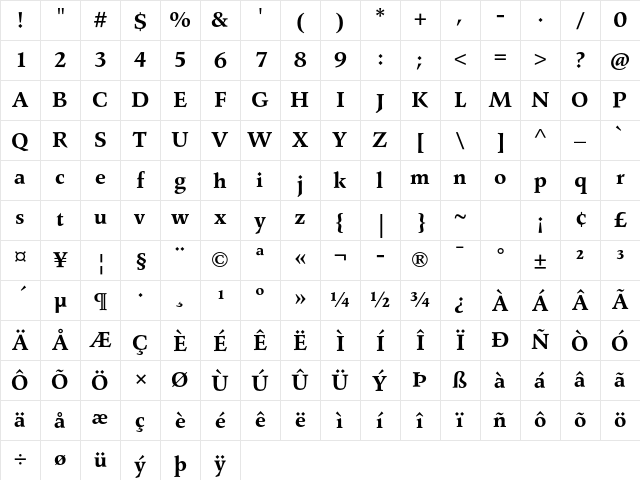
Agfa Wile Roman Std Bold
Complete Agfa Wile Roman Std Bold glyph index. Displaying only characters natively supported by Agfa Wile Roman Std Bold font.
Design Context for Agfa Wile Roman Std
Agfa Wile Roman Std is a composed and adaptable typeface that performs quietly and consistently across a wide range of design contexts. Its bold stroke weight gives it real presence on the page.